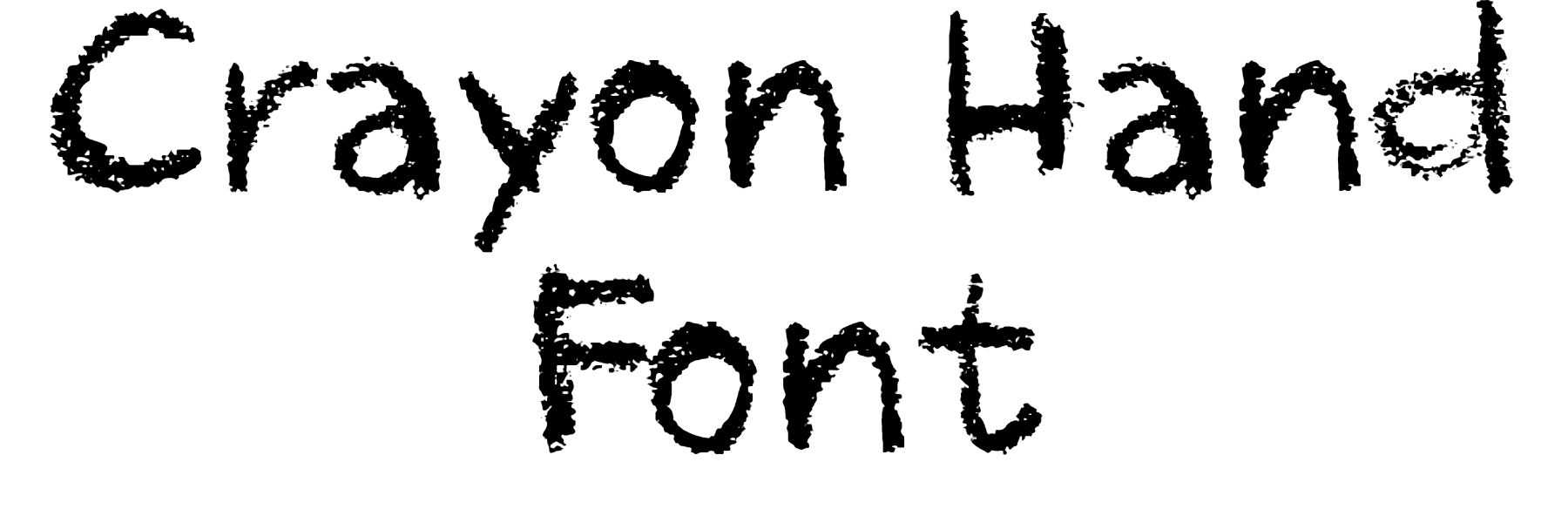
Crayon Hand
Crayon Hand is a fancy font created by ursula hitz (2010). It's a decorative display font with plenty of personality, made to grab attention. It's a free download, and you can try it with your own text in the preview above first.
With complete upper and lowercase letters and all ten digits, Crayon Hand is ready for real wording, not just a single headline. Everyday marks like &, !, ? and @ are there too. Thanks to its accented letters, it also works for Spanish, French, German, Portuguese and Italian, not just English.
Crayon Hand is a natural fit for posters, logos and eye-catching headlines. Use it for one standout word or headline and let simpler fonts handle the rest.
Yes. Crayon Hand includes the accented letters needed for Spanish, French, German, Portuguese and Italian, so it works for more than just English.